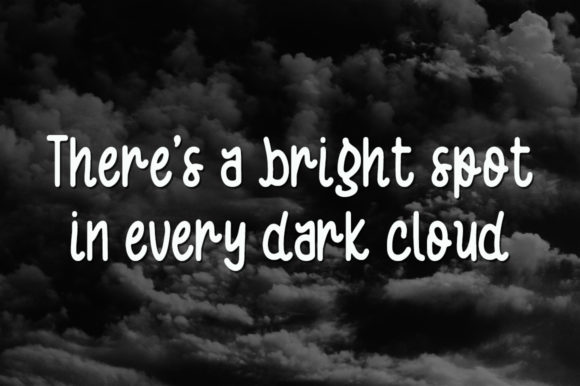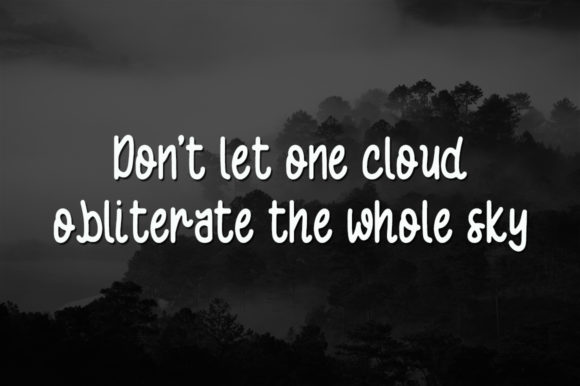
About Black Cloud Font
Introducing Black Cloud: The Simple and Neat Handwritten Font
Discover the understated beauty of Black Cloud, a simple and neat lettered handwritten font that adds a touch of elegance to your creative ideas. Whether you’re working on logos, branding, invitations, quotes, posters, social media graphics, or any other project, Black Cloud is the perfect font to make your designs stand out.
Black Cloud’s simplicity and neatness bring a sense of clarity and sophistication to your text. Its clean letterforms and artistic strokes make your words exude a captivating and refined energy.
As a font that boasts versatility and understated beauty, Black Cloud becomes the go-to choice for projects that demand a touch of elegance and simplicity. Its handwritten allure ensures that your work resonates with an authentic and clean look.
Embrace the charm of Black Cloud as you embark on your creative journey. Let it be the font that enhances your ideas, allowing you to create designs that stand out with their simplicity and neatness.
As you explore the possibilities of Black Cloud, you’ll find it to be a font that elevates your designs with ease. Its simple and neat lettered style transforms your work, ensuring that your logos, branding, invitations, and social media graphics leave a lasting impression.
So, add Black Cloud to your creative ideas and notice how it makes them stand out with its understated beauty. Embrace its simplicity and neatness, and let it infuse your designs with elegance and refinement. With Black Cloud as your font of choice, your creations will resonate with a sense of clarity and sophistication, captivating your audience and leaving a lasting impression. Embrace the simplicity of Black Cloud and create projects that are truly elegant and irresistibly captivating!